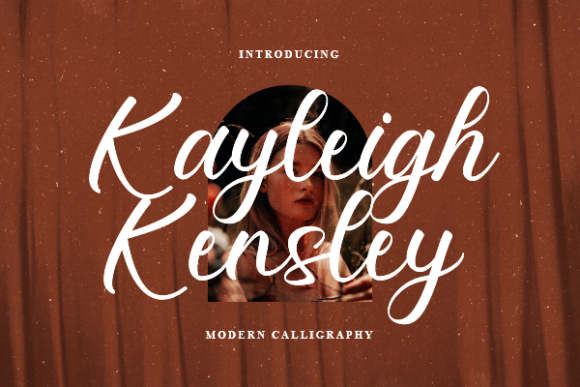
Introducing Kayleigh Kensley Font, an enchantingly beautiful script designed to fulfill your creative visions with grace and elegance. Its free-flowing lines mirror the fluidity of a dancer's movements, adding a touch of magic to your digital creations.
With Kayleigh Kensley Font, elevate your blog posts, logos, branding, and advertisements to new heights. Create invitations and greeting cards that exude charm and sophistication, capturing the hearts of your recipients. Design planners and photo albums that preserve your precious memories in a timeless, artful manner.
Kayleigh Kensley Font is more than just a font; it's an artistic expression that brings warmth and personality to your projects. It's the perfect choice for those who seek a touch of whimsy and romance in their designs.
Indulge in the beauty of Kayleigh Kensley Font and watch your creations blossom into masterpieces. Let its alluring curves and delicate strokes captivate your audience, leaving them spellbound and yearning for more.